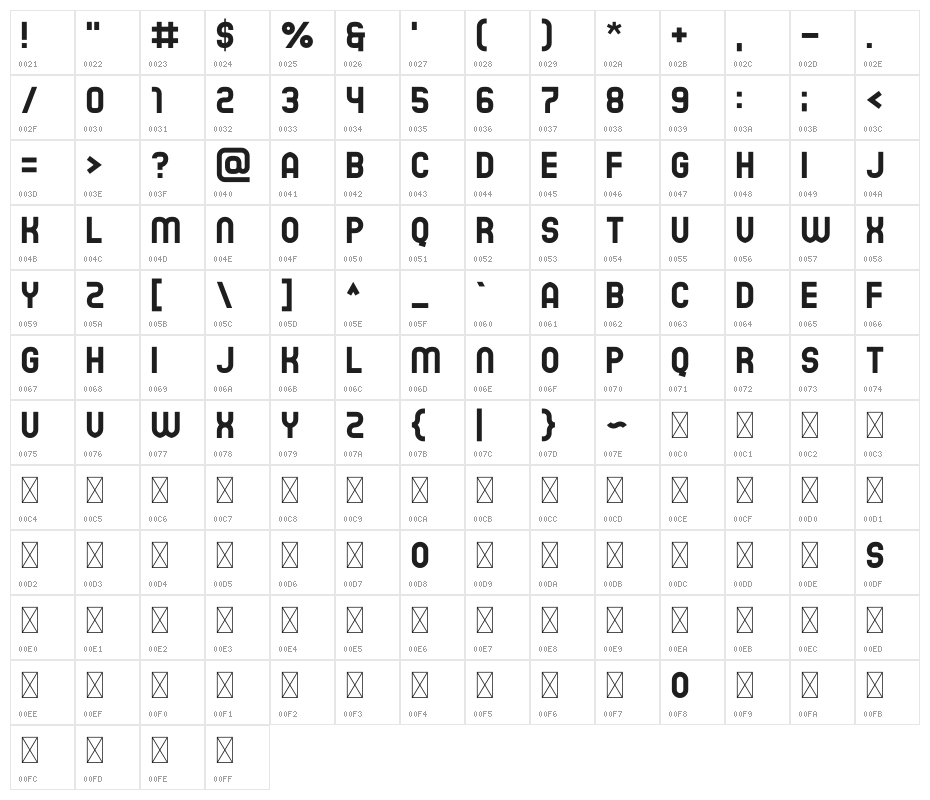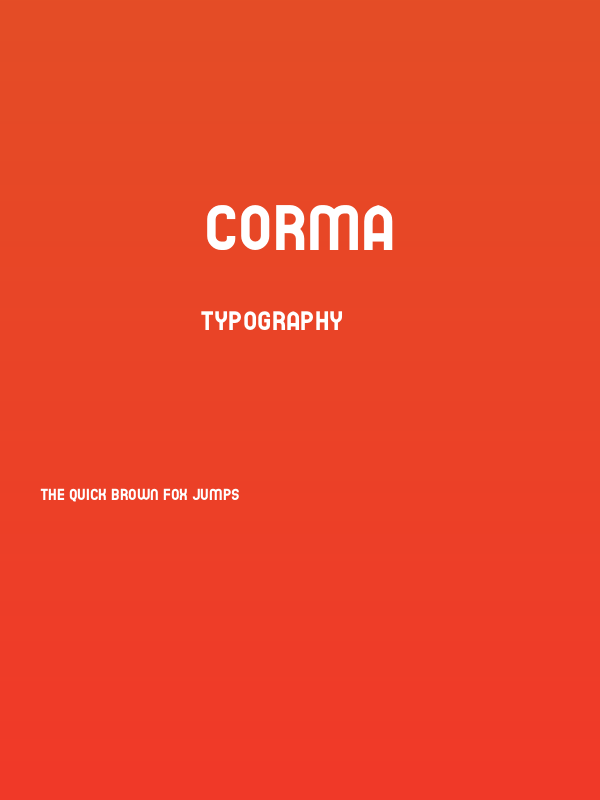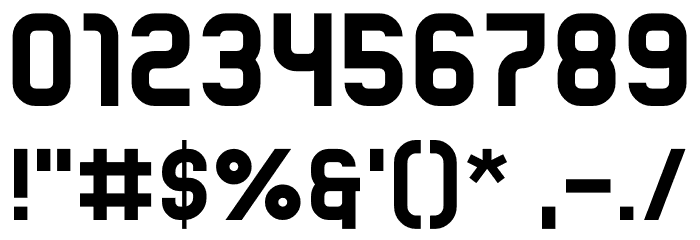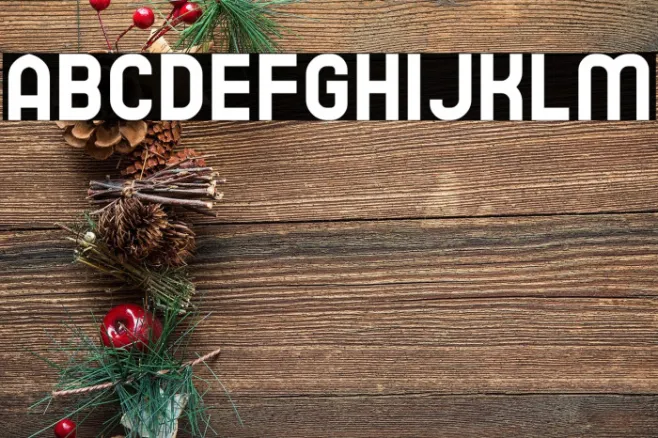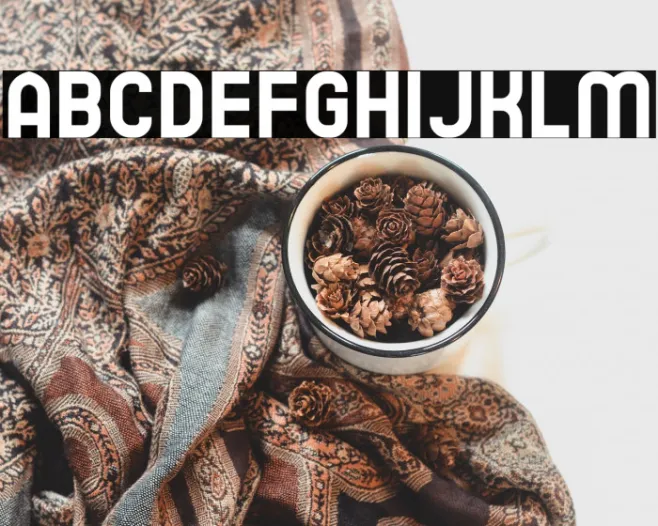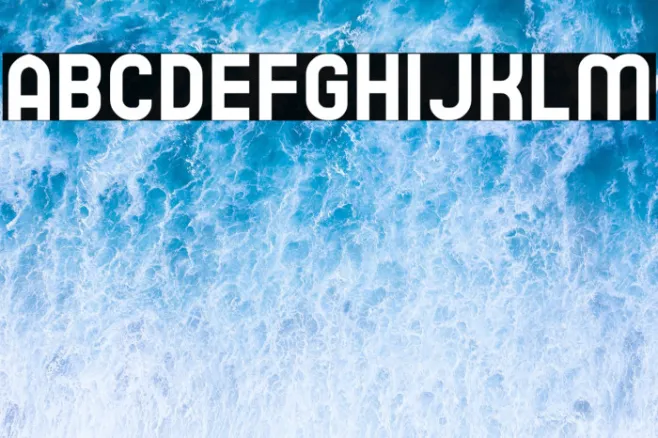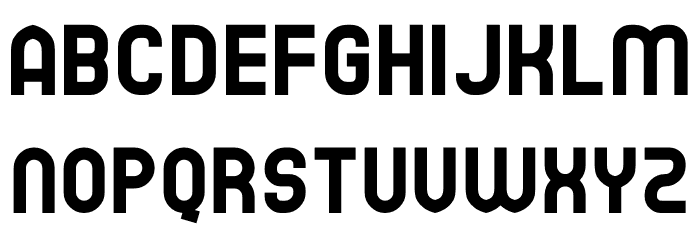
Corma Font
Corma Description
This font features a bold and geometric design with a modern aesthetic. The characters are constructed with consistent stroke widths, creating a uniform and cohesive appearance. The uppercase letters exhibit a strong presence with their block-like shapes, while the lowercase letters maintain a similar structure, ensuring readability. The numerals are clear and distinct, complementing the overall style. Special characters are well-integrated, maintaining the font's bold and structured look. This font's design is both functional and visually striking, making it suitable for a variety of applications.
| Proposed Projects | Ideal for branding, headlines, posters, and digital media where a strong visual impact is desired. |